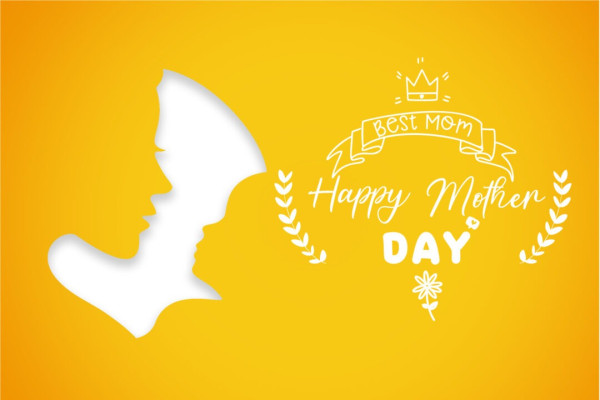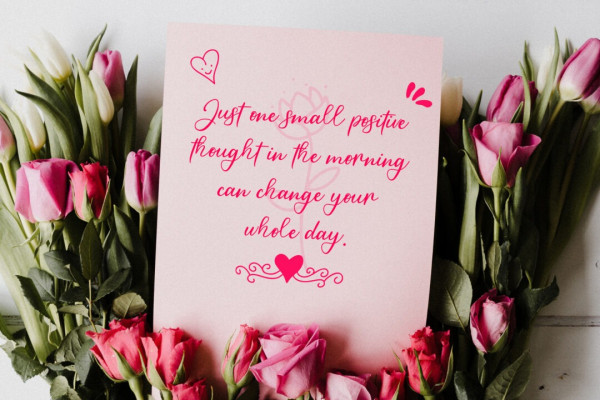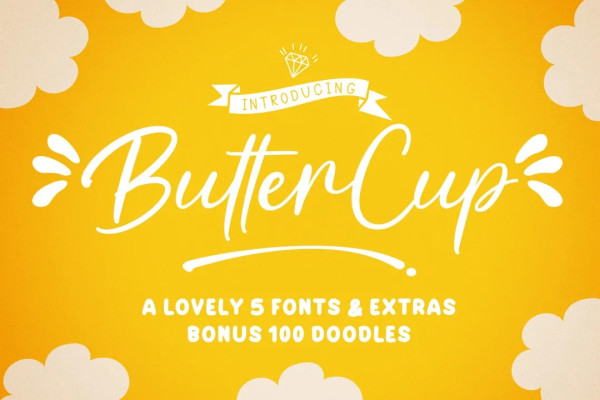
Butter Cup Font
Butter Cup Font – Five Font & Extras – a versatile font family that includes both uppercase and lowercase letters, along with symbols, numbers, and punctuation marks. It’s perfect for various design projects such as invitations, stationery, weddings, birthdays, quotes, crafts, and more. Whether you’re creating eye-catching quotes, designing unique artwork, or enhancing your brand, Butter Cup Five Font & Extras is the perfect choice. Don’t hesitate, add a touch of elegance to your designs today with Butter Cup Five Font & Extras!